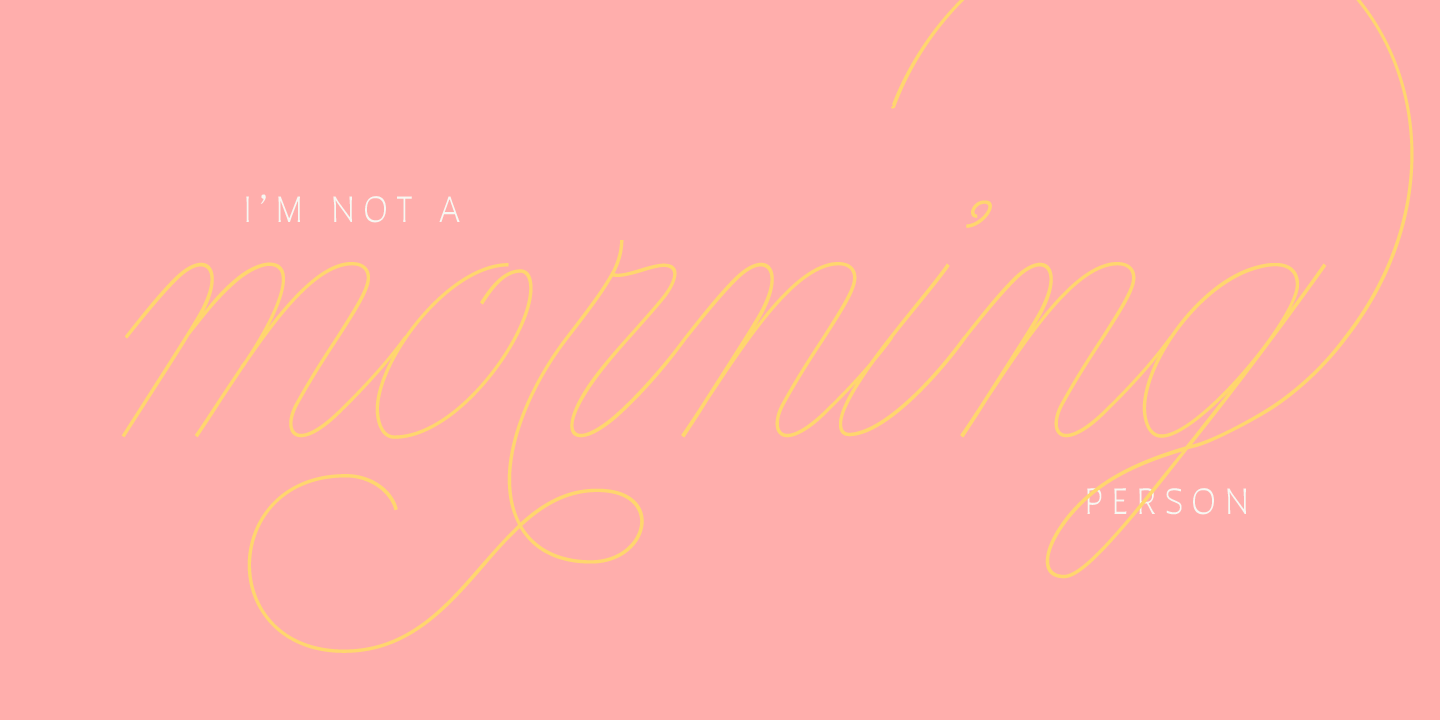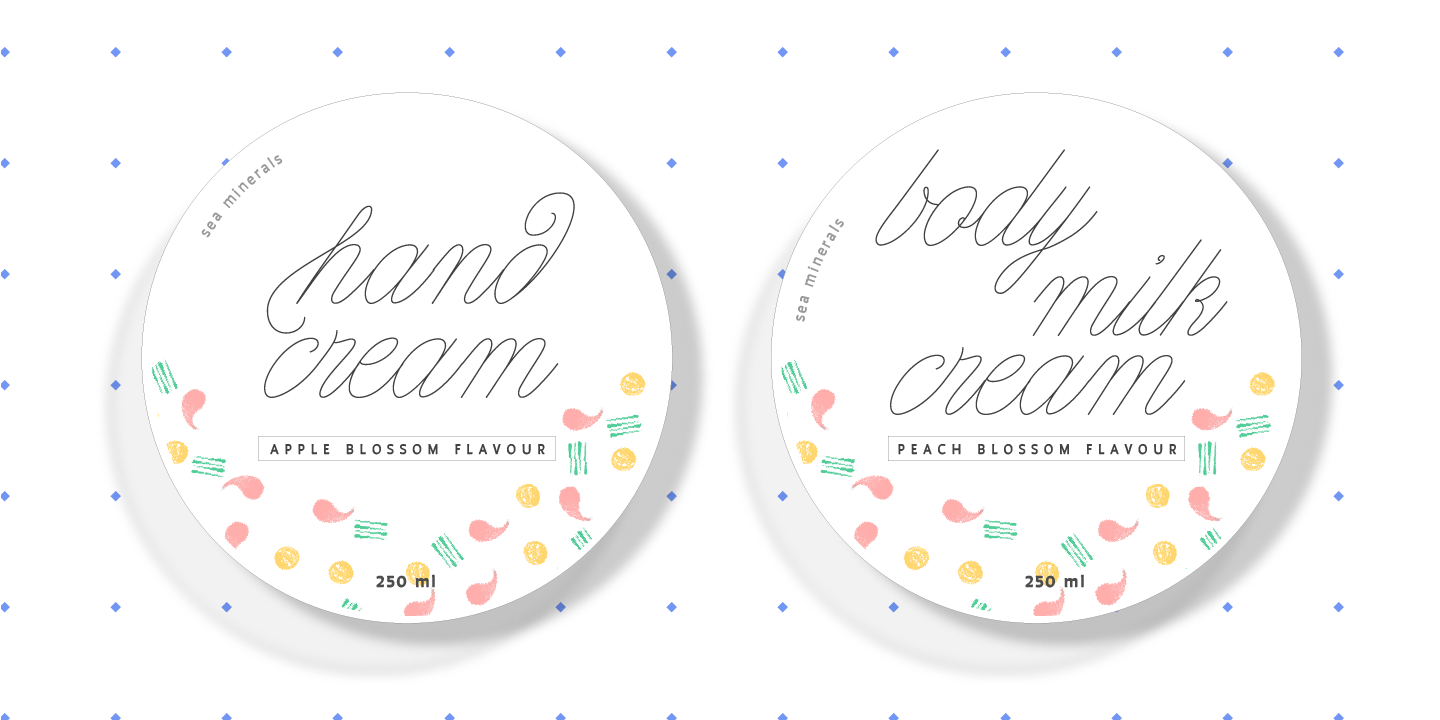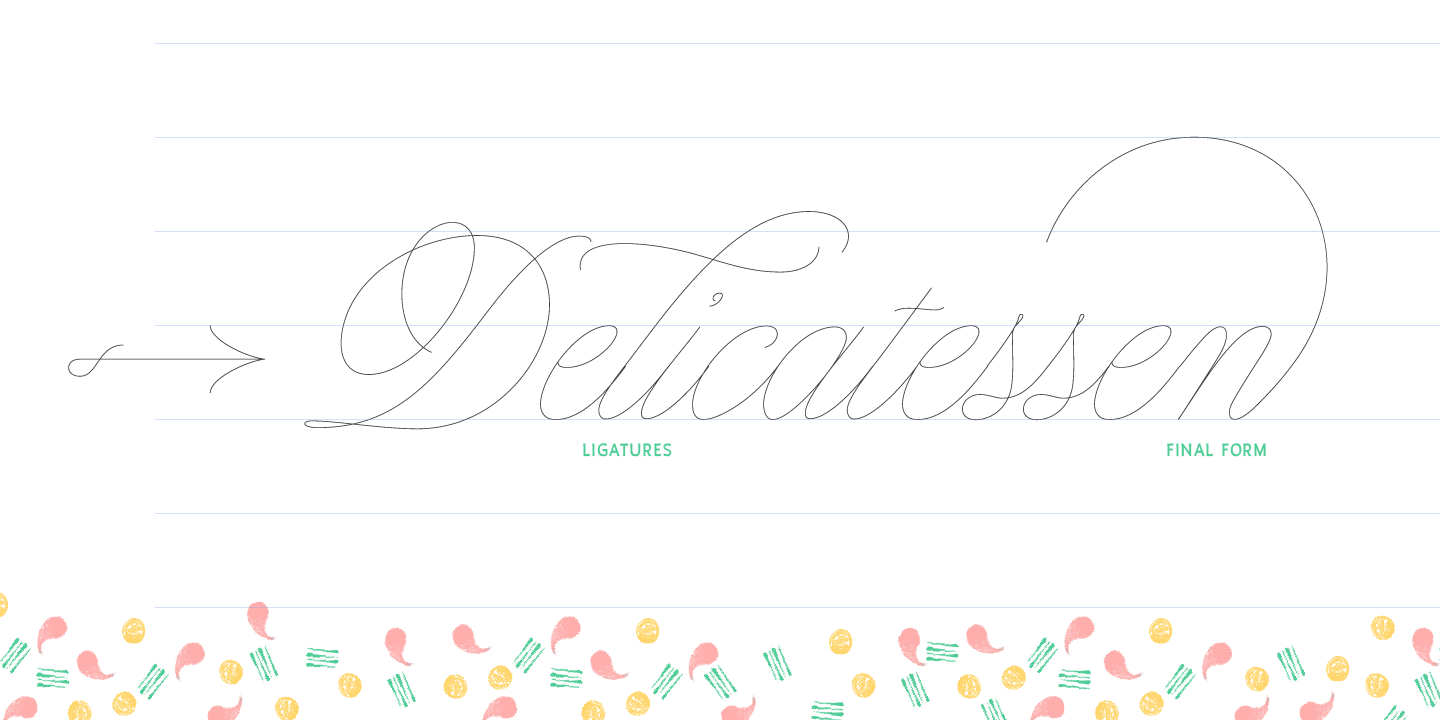
Nautica Line is a new version of Nautica font. This font family contains 11 fonts, made by different weight of lines. The Features of this fonts are: Contextual Alternates, Standart ligatures, Stylistic Alternates and Stylistic sets.